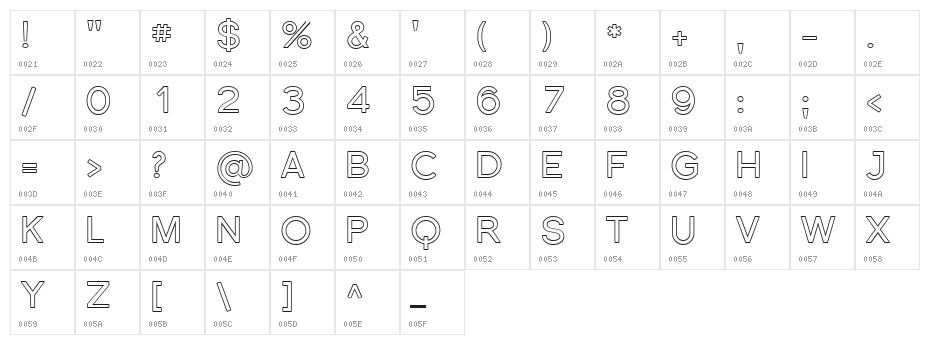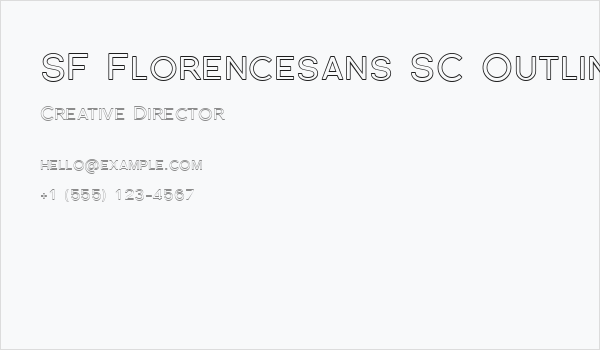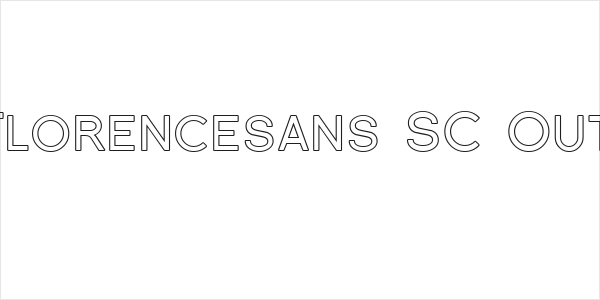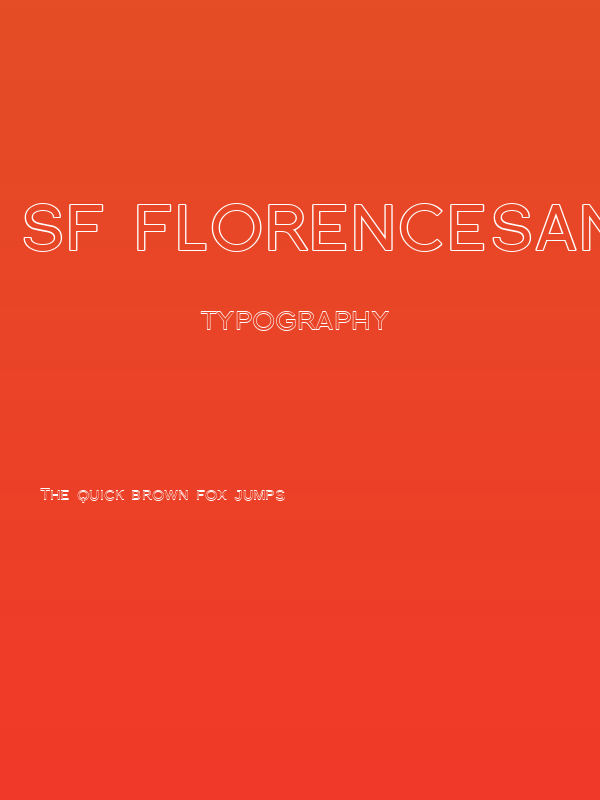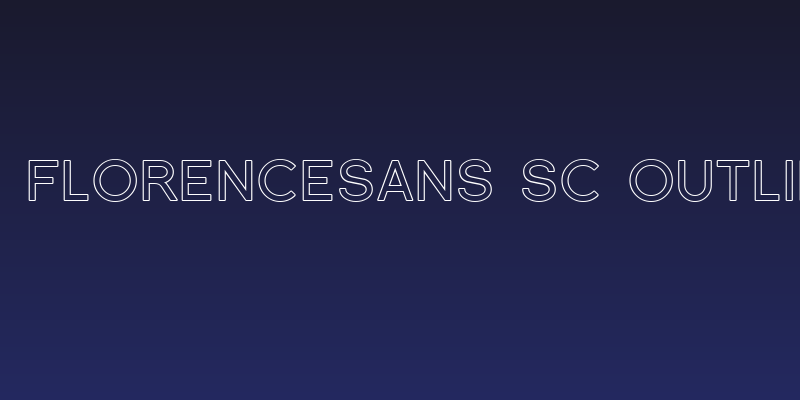
SF Florencesans SC Outline Font
SF Florencesans SC Outline Description
This font features a clean and modern sans-serif style with an outline design. Each character is crafted with precision, offering a geometric and structured appearance. The uppercase and lowercase letters maintain a consistent height and width, providing a uniform look across the board. The numerals are equally balanced, ensuring readability and aesthetic appeal. Special characters are included, enhancing the versatility of the font. The outline style gives it a unique, airy feel, making it stand out in various design contexts.
| Proposed Projects | Ideal for branding, posters, headlines, and any design project requiring a modern and distinctive look. |